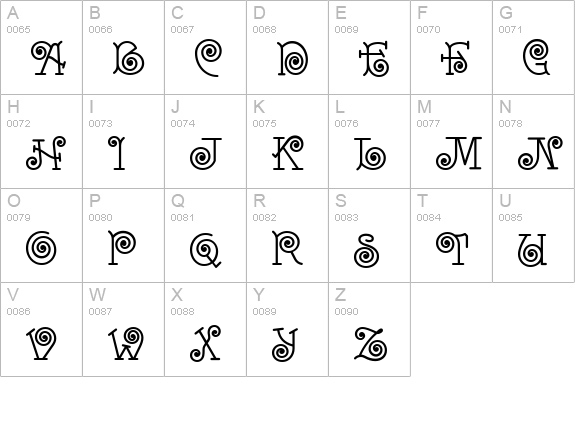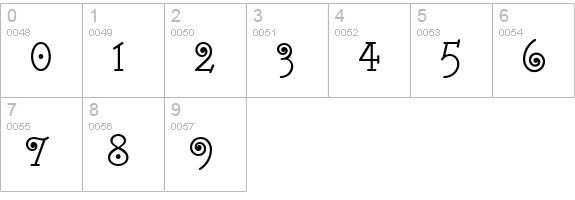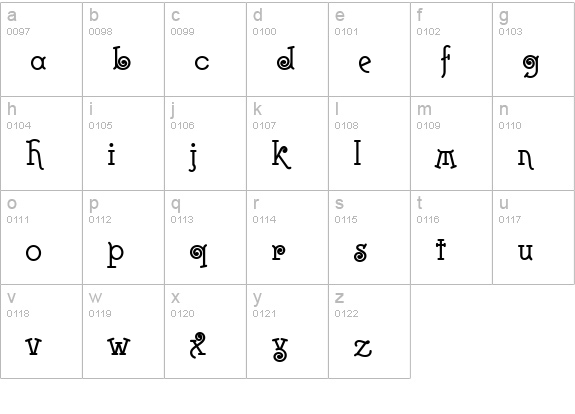
Hasta La Pasta NF Font Details
Hasta La Pasta NF is a stunning and versatile font that combines elegance and modernity to create a truly unique typeface. With its sleek lines and graceful curves, this font is perfect for a wide range of design projects, from logos and branding to invitations and posters. What sets Hasta La Pasta NF apart is not only its striking visual appeal, but also the fact that it is completely free to use. This means that you can add a touch of sophistication to your projects without breaking the bank. Whether you're a professional designer or a DIY enthusiast, this font is a valuable addition to your creative toolkit. Downloading Hasta La Pasta NF is quick and easy. Simply head over to FontsMarket.com, where you can freely access and download this font with just a few clicks. With its extensive character set and multiple weights, you'll have endless possibilities for creating stunning typography. So why wait? Embrace the beauty and versatility of Hasta La Pasta NF font today. Let your designs come to life with its elegant and modern aesthetic. And the best part? It won't cost you a dime. Download this font for free at FontsMarket.com and elevate your projects to new heights of sophistication.